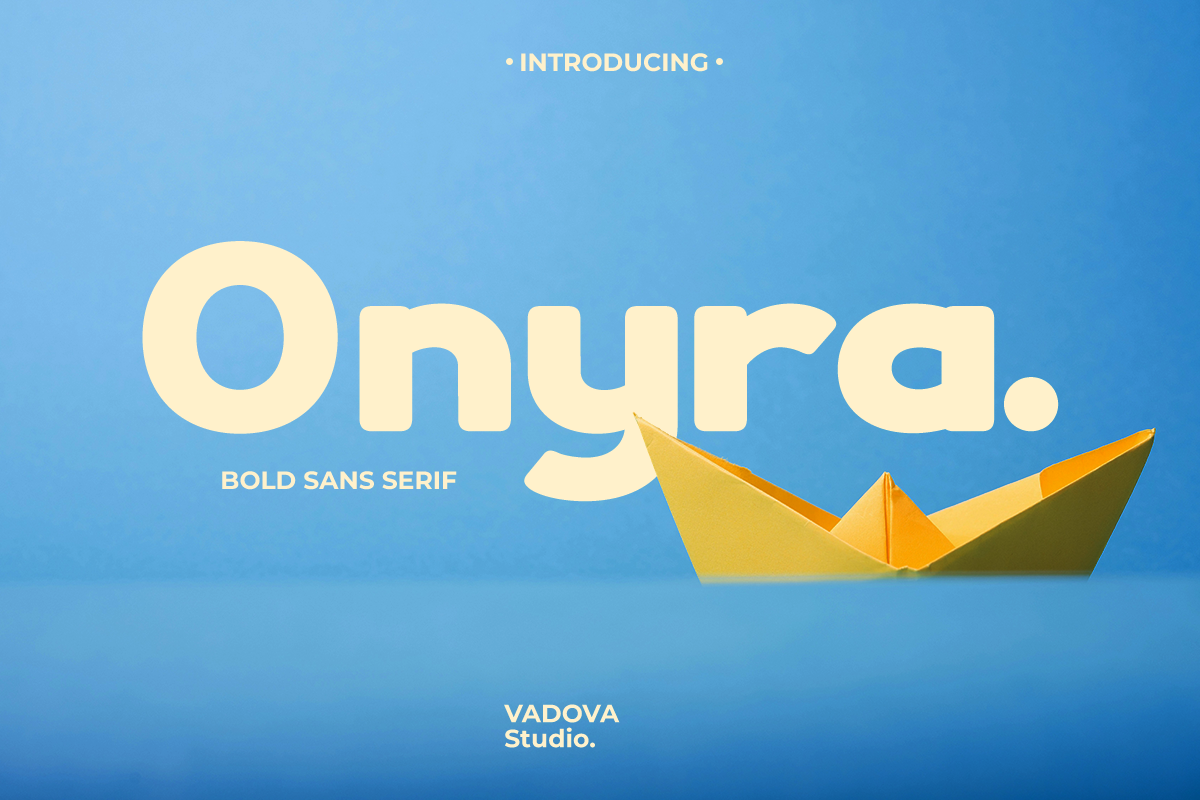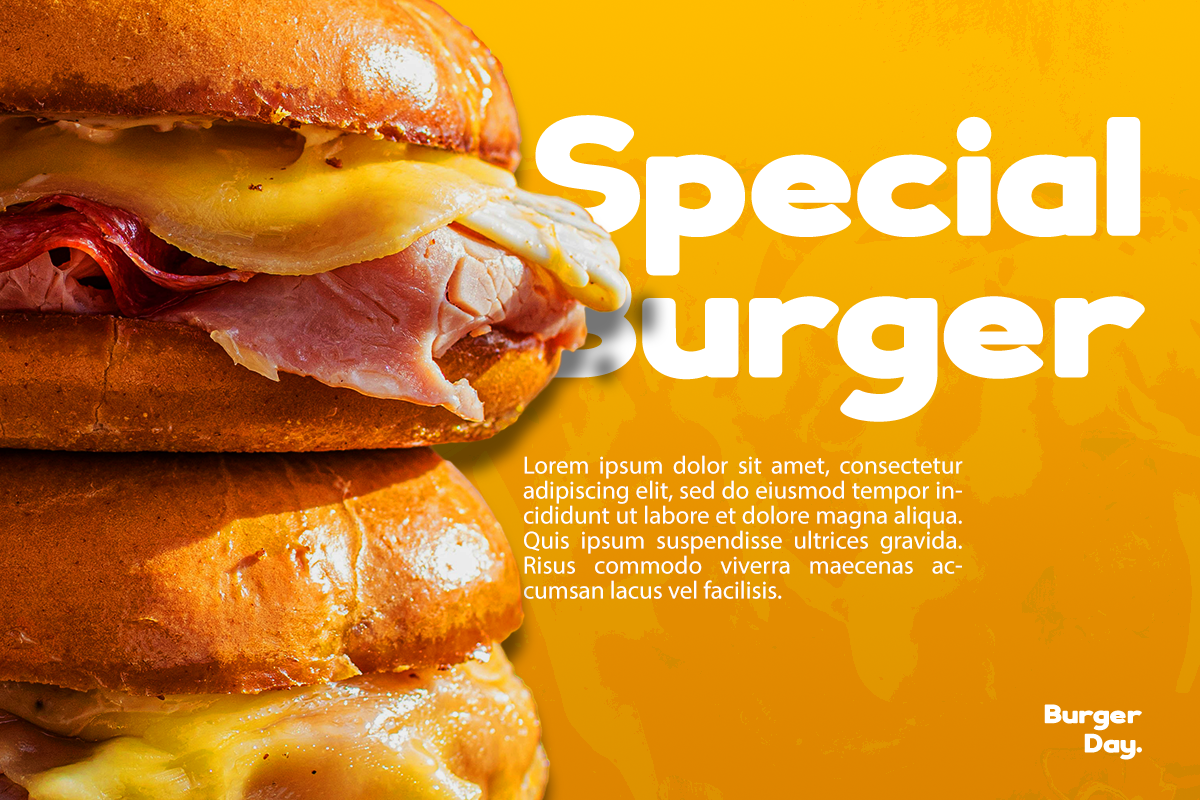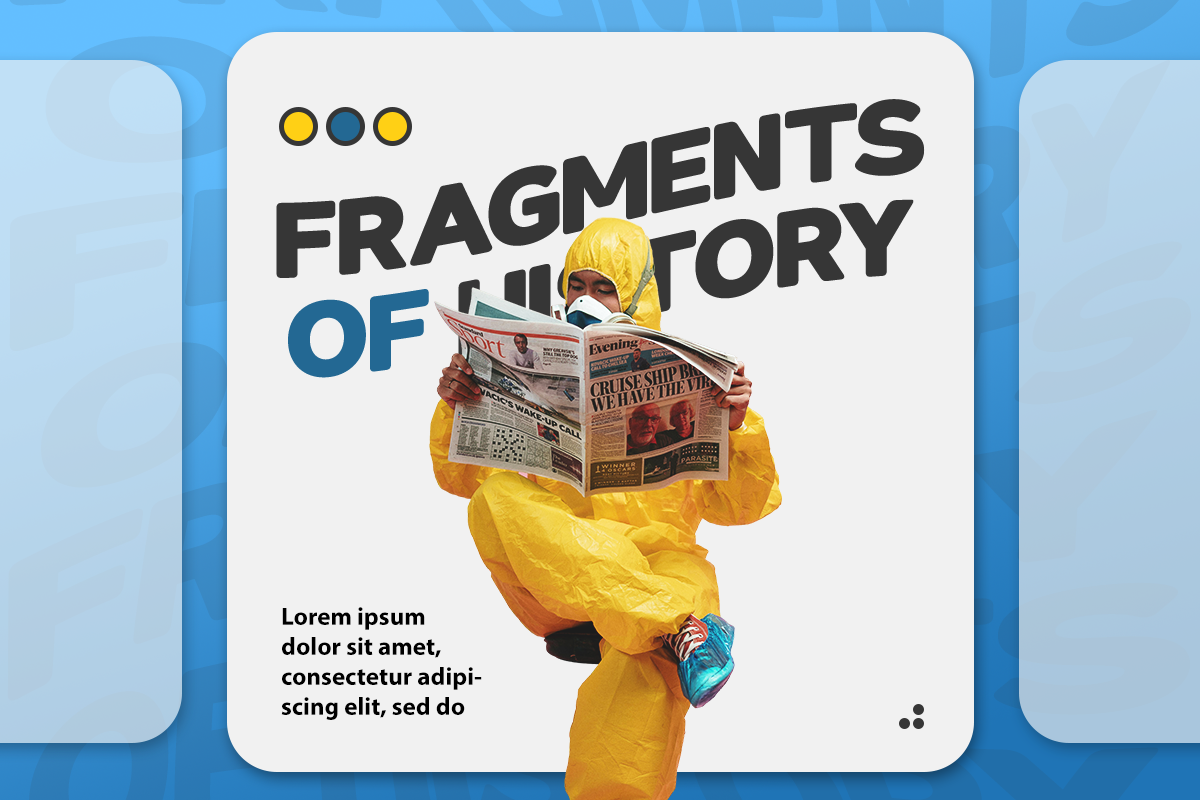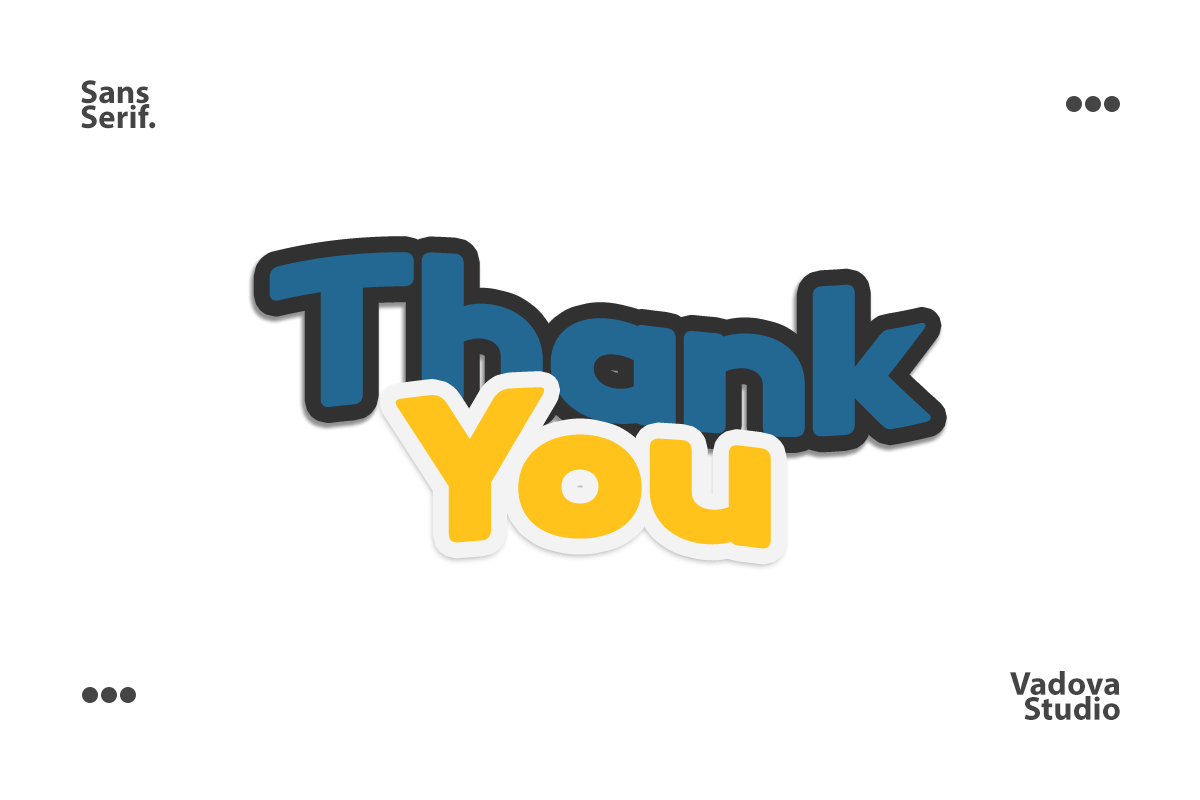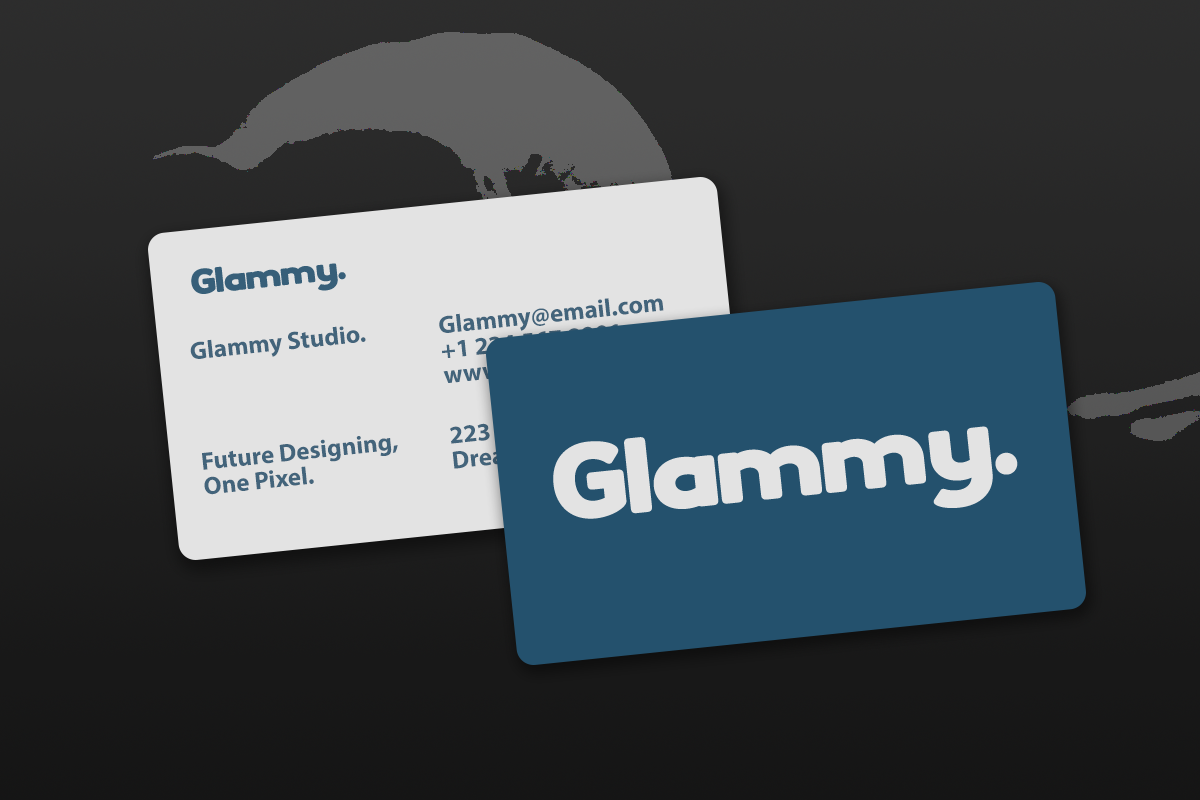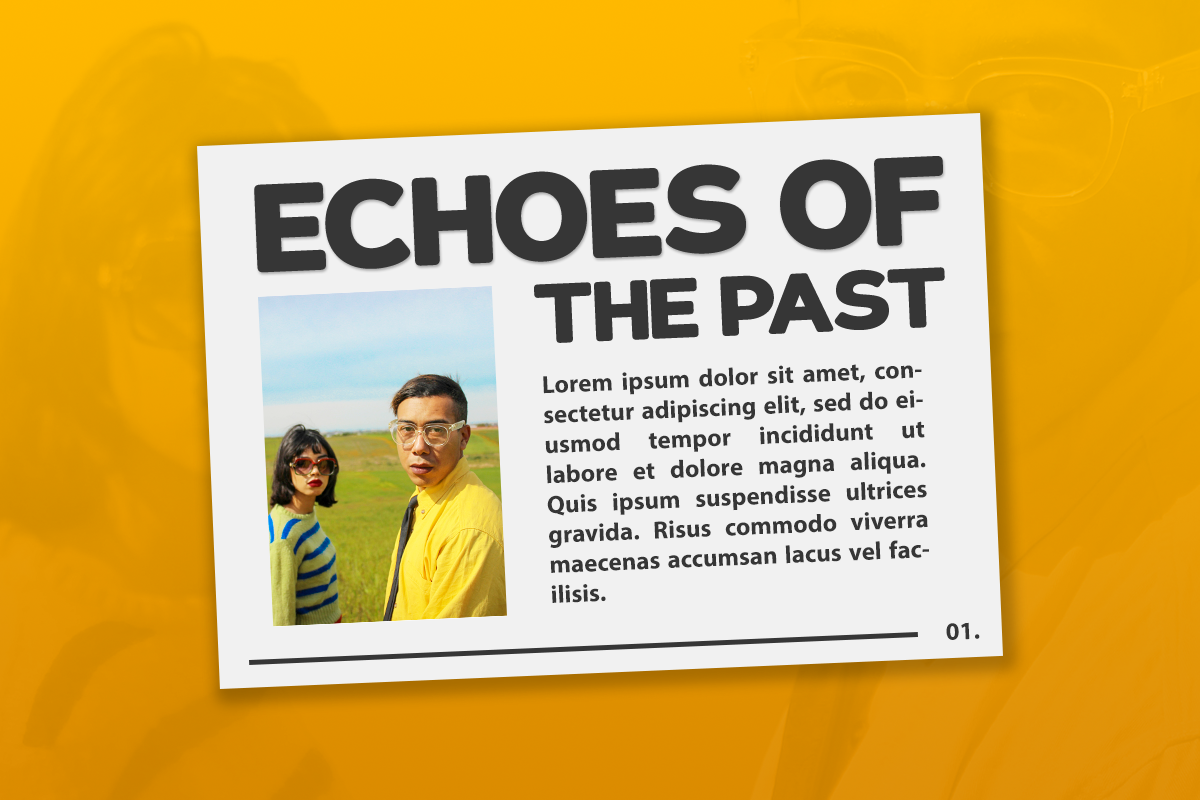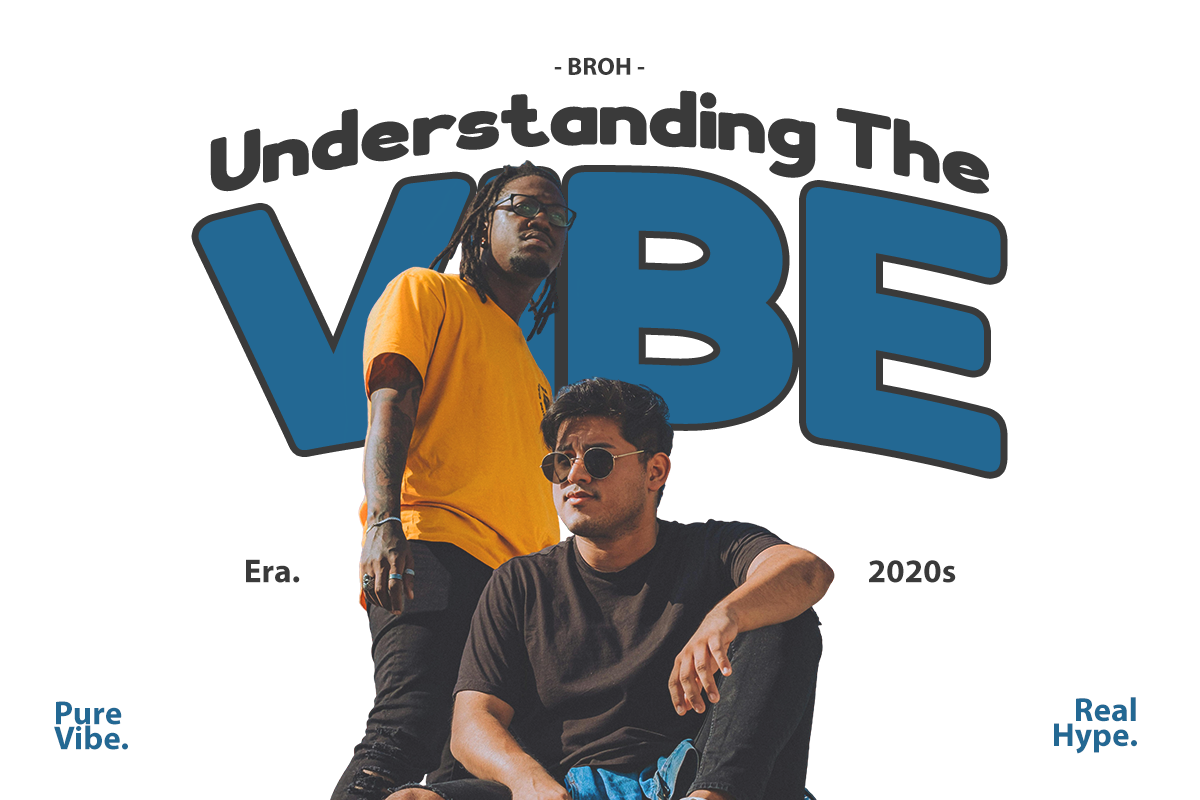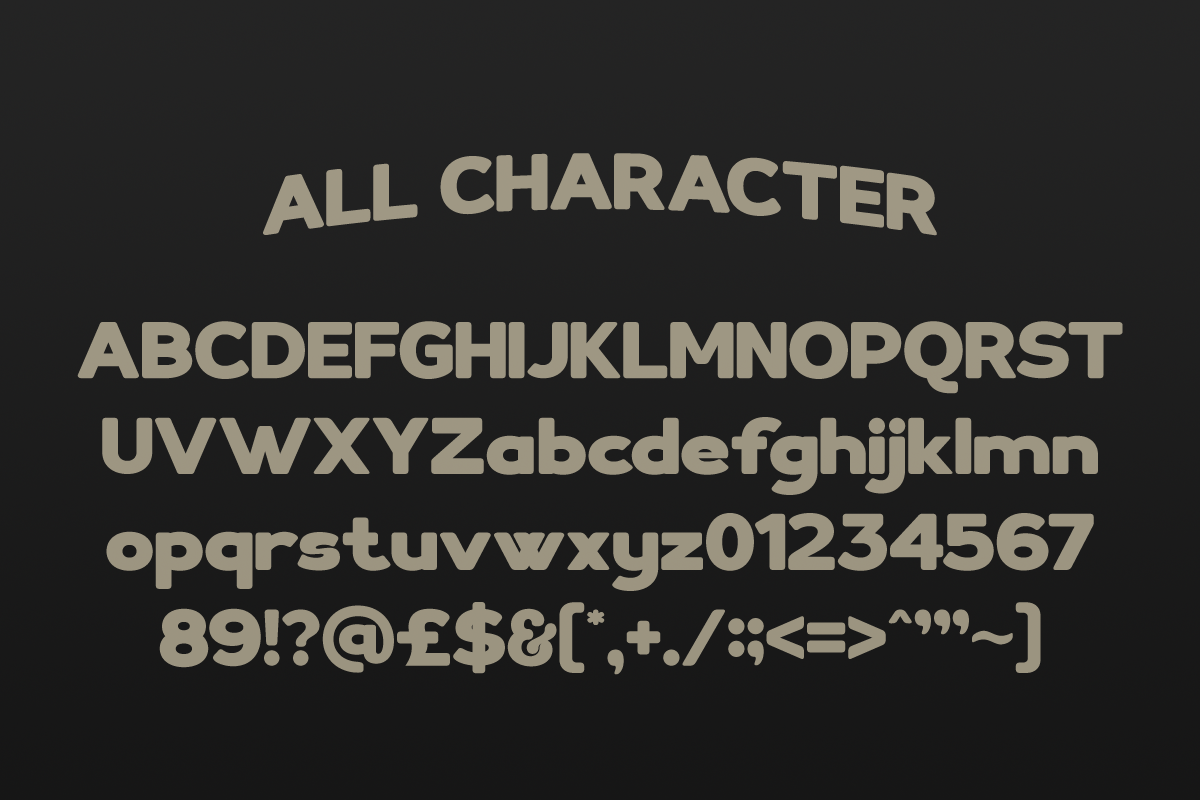
Onyra – Bold Sans Serif Font
Onyra is a bold sans serif font with a smooth geometric form and balanced rounded edges, exuding confidence and approachability. Its wide curves and clean proportions make it ideal for modern branding and editorial use, bringing clarity and warmth in every word. The font strikes a perfect harmony between bold presence and minimal charm, suitable for both digital and print visuals.
Font Highlights
Bold geometric sans serif style
Rounded corners with even stroke contrast
Uppercase, lowercase, numerals, punctuation
Excellent readability and modern versatility
Why Designers Love Onyra
Modern Versatility – Perfect balance between strength and friendliness.
Clean Geometry – Delivers precise visual consistency.
Contemporary Feel – Ideal for tech, lifestyle, and design brands.
Rounded Confidence – Projects approachability with professional tone.
Relevance and Use Cases
Relevance and Use Cases is perfect for branding, corporate identity, editorial layouts, product packaging, tech startups, web headers, minimalist logos, advertising campaigns, and lifestyle magazine covers.